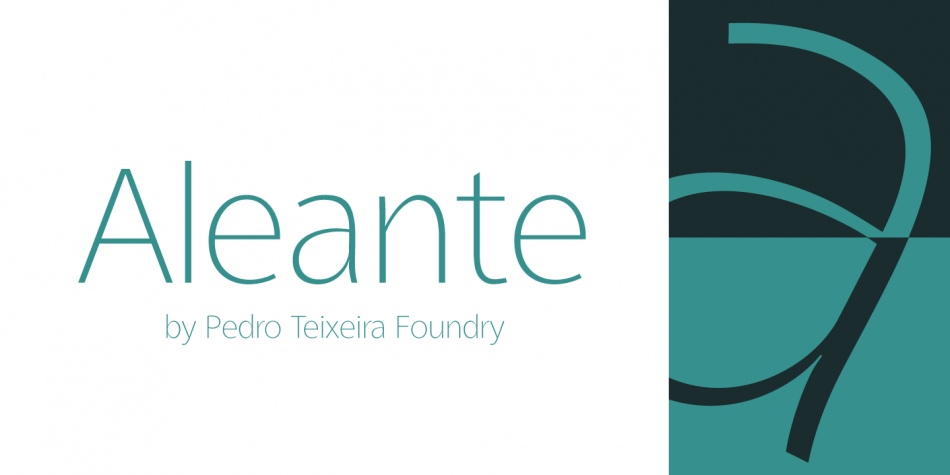
Aleante Sans Font
Aleante Sans Font is perfect for modern branding projects, website headers, logo designs, editorial layouts, magazine covers, poster designs, digital advertisements, mobile app interfaces, social media graphics, and contemporary print materials.
What makes Aleante Sans Font exciting is its clean geometric structure combined with subtle humanist touches that create perfect readability across all media. The font strikes an ideal balance between professionalism and approachability, making it versatile enough for both corporate communications and creative projects. Its carefully crafted letterforms ensure excellent legibility at any size, while maintaining a distinctive character that sets your designs apart from the competition.
Aleante Sans Font family includes multiple weights ranging from Ultra Light to Black, with corresponding italic variants for each weight. The complete family typically features Light, Regular, Medium, Semi Bold, Bold, and Extra Bold variations, giving designers comprehensive typographic flexibility for hierarchical text structures and diverse design applications.
This versatile typeface has gained popularity among graphic designers and web developers for its modern aesthetic and technical excellence. Aleante Sans Font Free Download offers an opportunity to explore this premium typography solution before making a purchase decision. The font's OpenType features include extended character sets, multiple language support, and professional typographic elements that enhance text formatting capabilities. Whether you're working on a startup's brand identity, a tech company's website, or a fashion magazine layout, Aleante Sans Font delivers the contemporary sophistication your project demands. Its neutral yet distinctive appearance makes it suitable for various industries, from technology and finance to fashion and lifestyle brands, ensuring your message communicates effectively across different audiences and platforms.